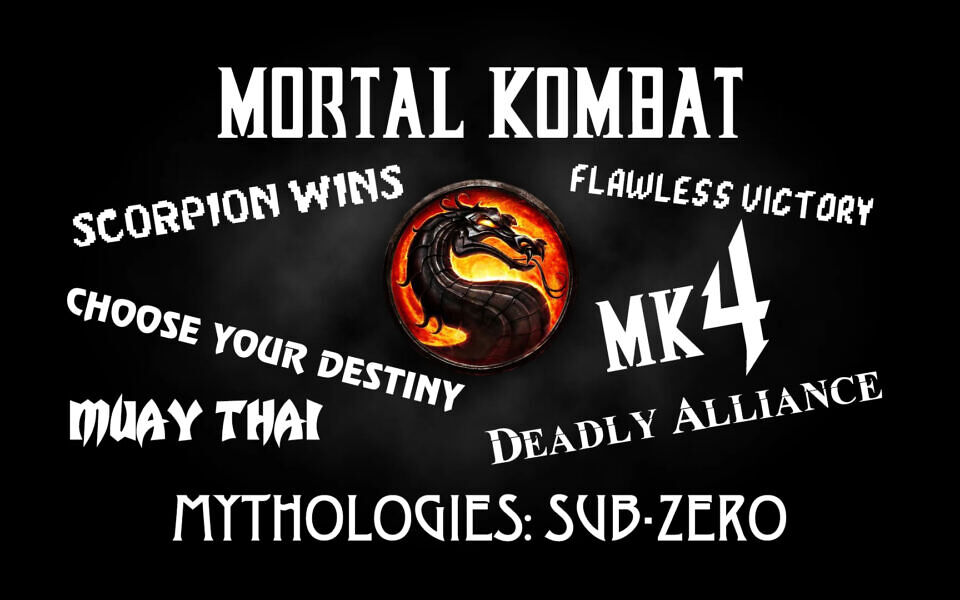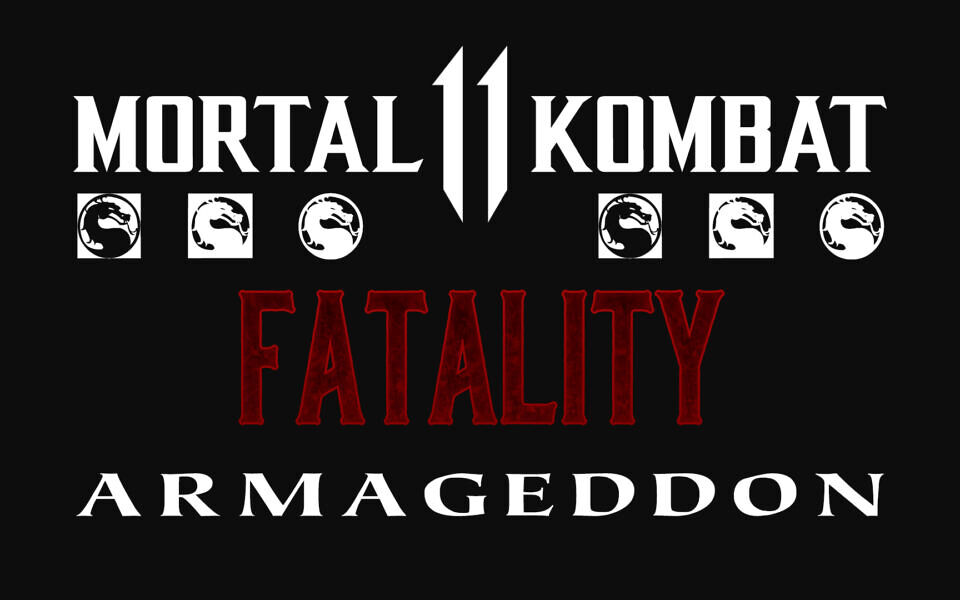
Mortal Kombat Font Family
The Mortal Kombat Font Family is a definitive font collection of the typography that defined gaming history. This specialized collection features fonts utilized across classic titles, including Mortal Kombat 1, 2, 3, 4, Mythologies, MK11, and Deadly Alliance.
Capturing the iconic arcade, pixelated console, and dark aesthetic of the franchise, these digital assets are perfect for fan art, video editing, and retro design projects celebrating the legacy of Midway’s legendary fighting game series.
Fonts included:
• Mortal Kombat 1 2023 Font
• Mortal Kombat 1 Font
• Mortal Kombat 2 Font
• Mortal Kombat 3 Font
• Mortal Kombat 4 Font
• Mortal Kombat Deadly Alliance Font
• Mortal Kombat Armageddon
• Mortal Kombat X Logo Font
• Mortal Kombat 11
• Mortal Kombat 11 and 1 Fatality font (Bourbon Rough)
• Earthrealm Font Family by Iconian Fonts
• Mortal Kombat 1 Menu Font (Odense Font)
• MK Title Font + MK Title Alternative Font